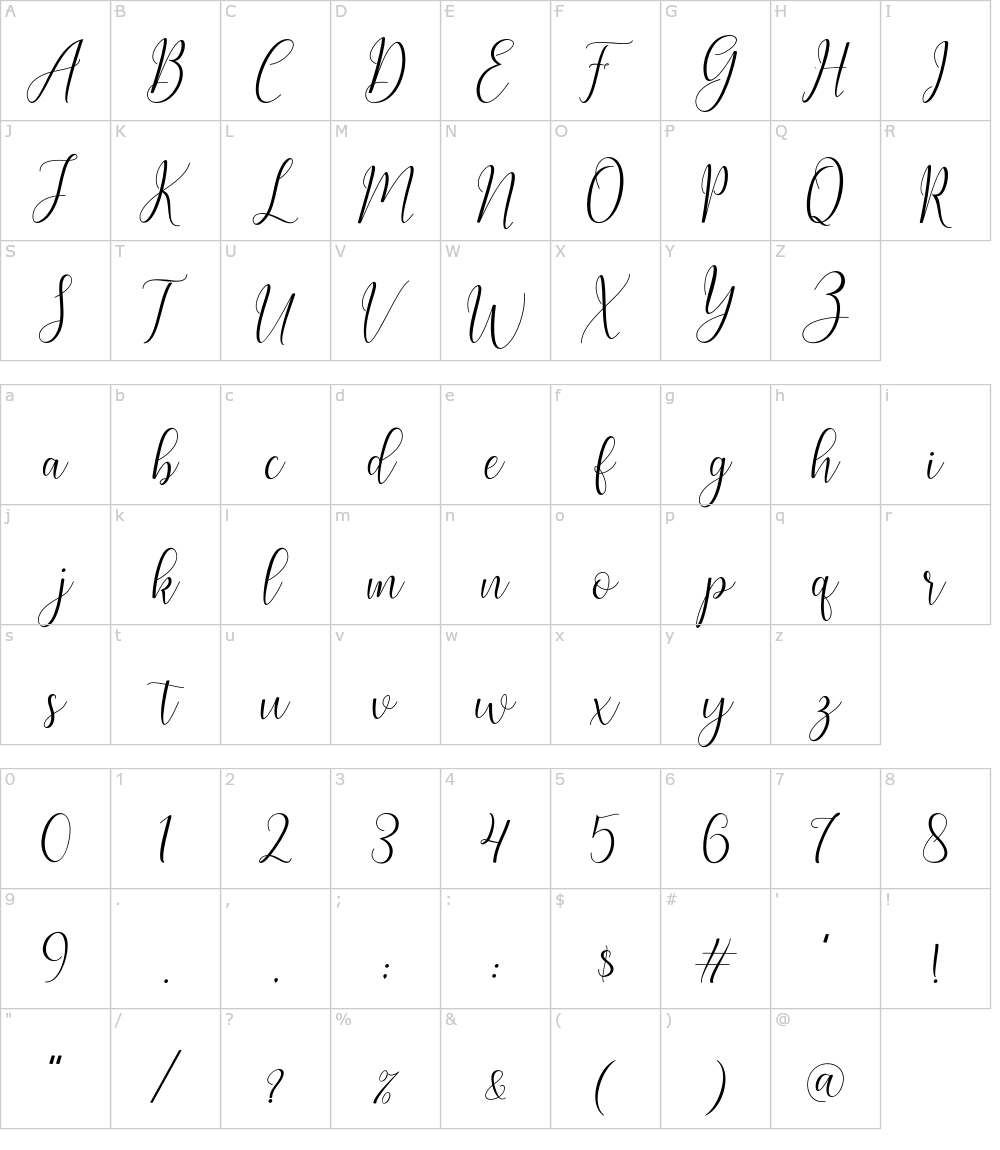
Awasome Nostalgia Ultra Fonts Ideas. Nostalgia font is a stylish and sophisticated modern serif typeface created by rsz. If anyone can identify the fonts on frank ocean's nostalgia ultra mixtape, it'd be.
With ligatures and stylistic alternates. If anyone can identify the fonts on frank ocean's nostalgia ultra mixtape, it'd be. Nostalgia is a romantic and delicate script font.
Nostalgia Regular Is The Perfect Font For All Your Fun Designs.
It Is Very Inspired From Retro Arcade Fonts, Horror Fonts, And Comic Fonts.
Ultra is an ultra bold slab typeface with nods to wood type styles like clarendon and egyptian. Nostalgia font is a stylish and sophisticated modern serif typeface created by rsz. Nostalgia font nov 8, 2021 nostalgia script is a romantic and delicate script font.